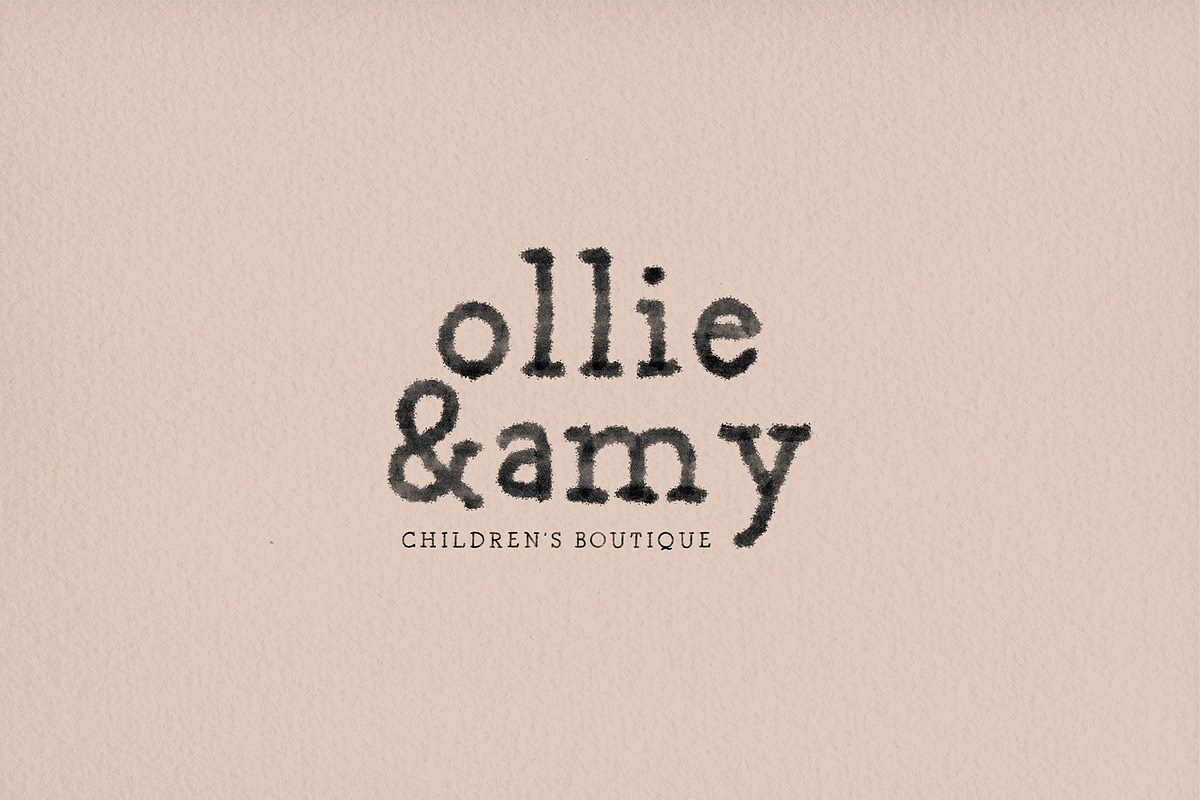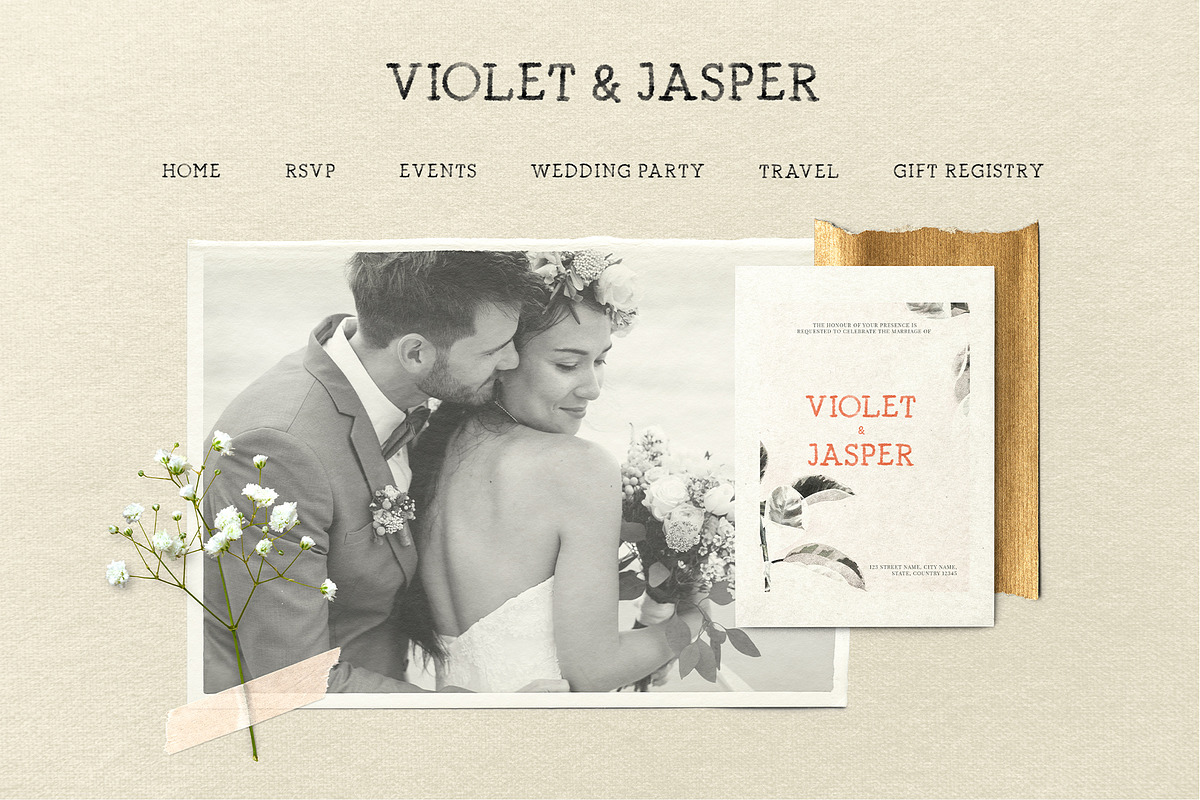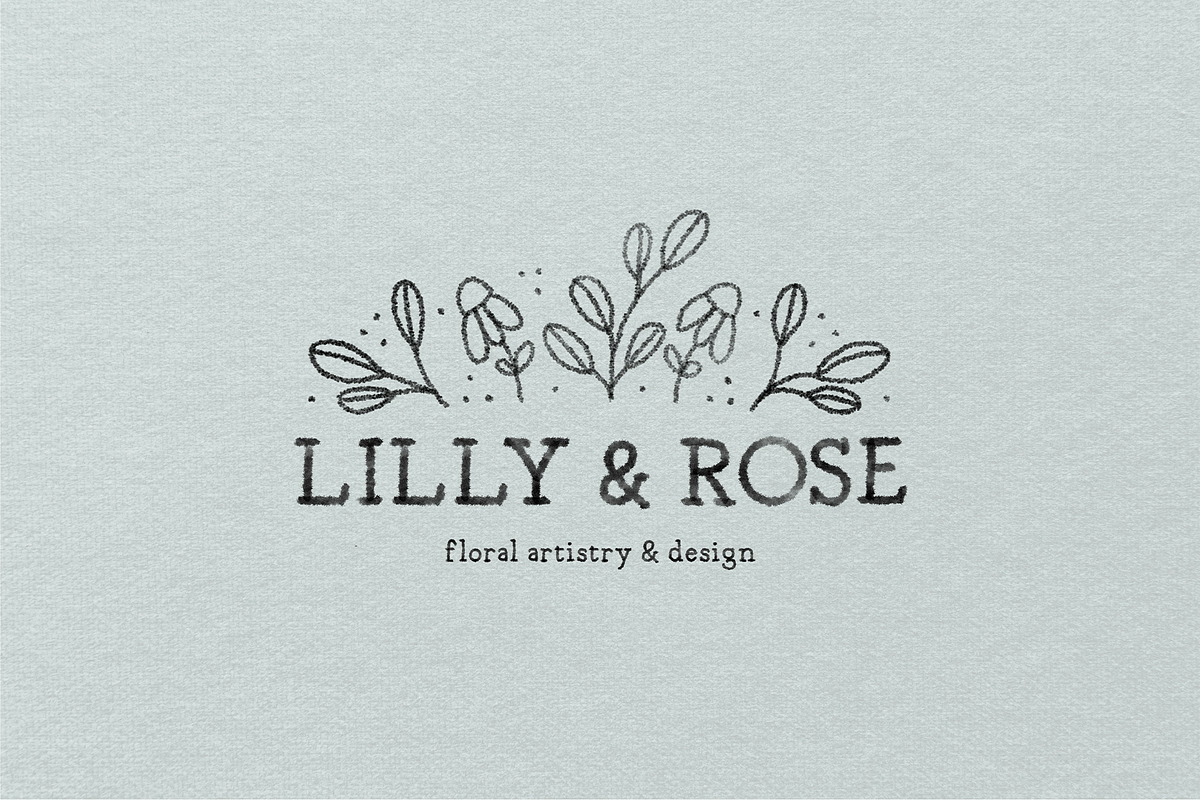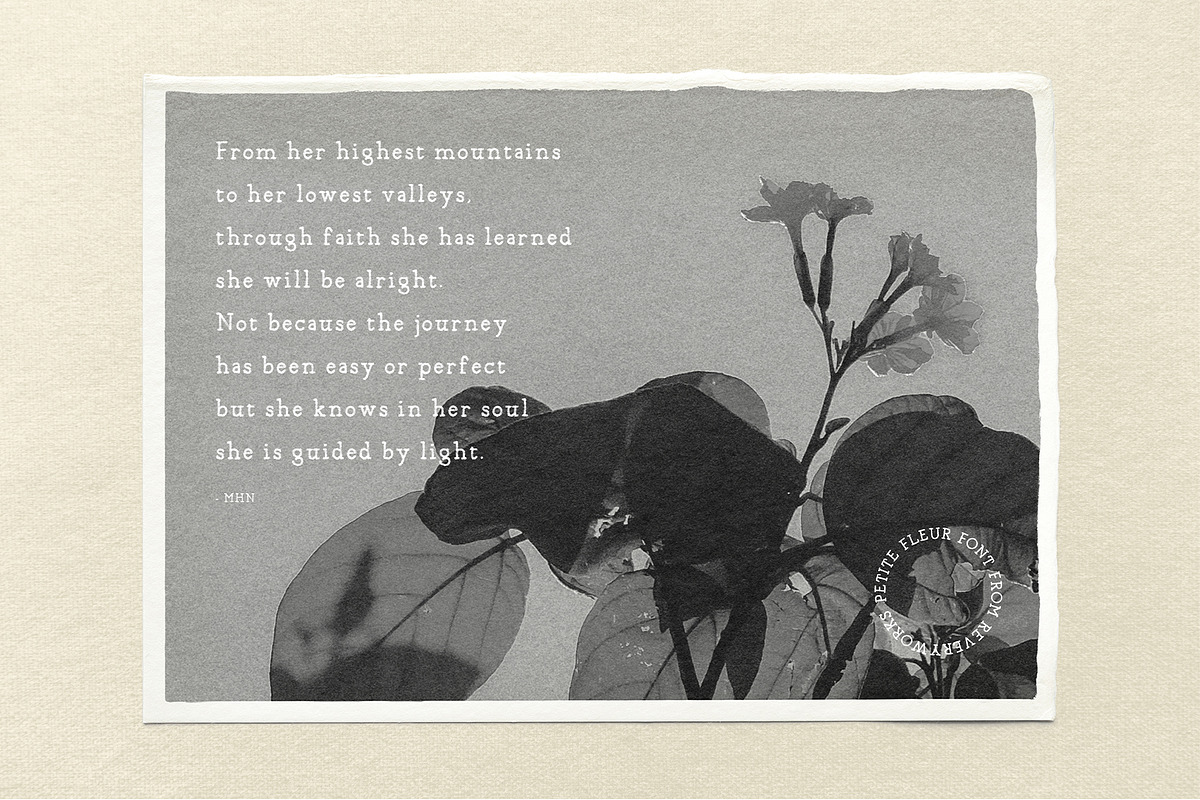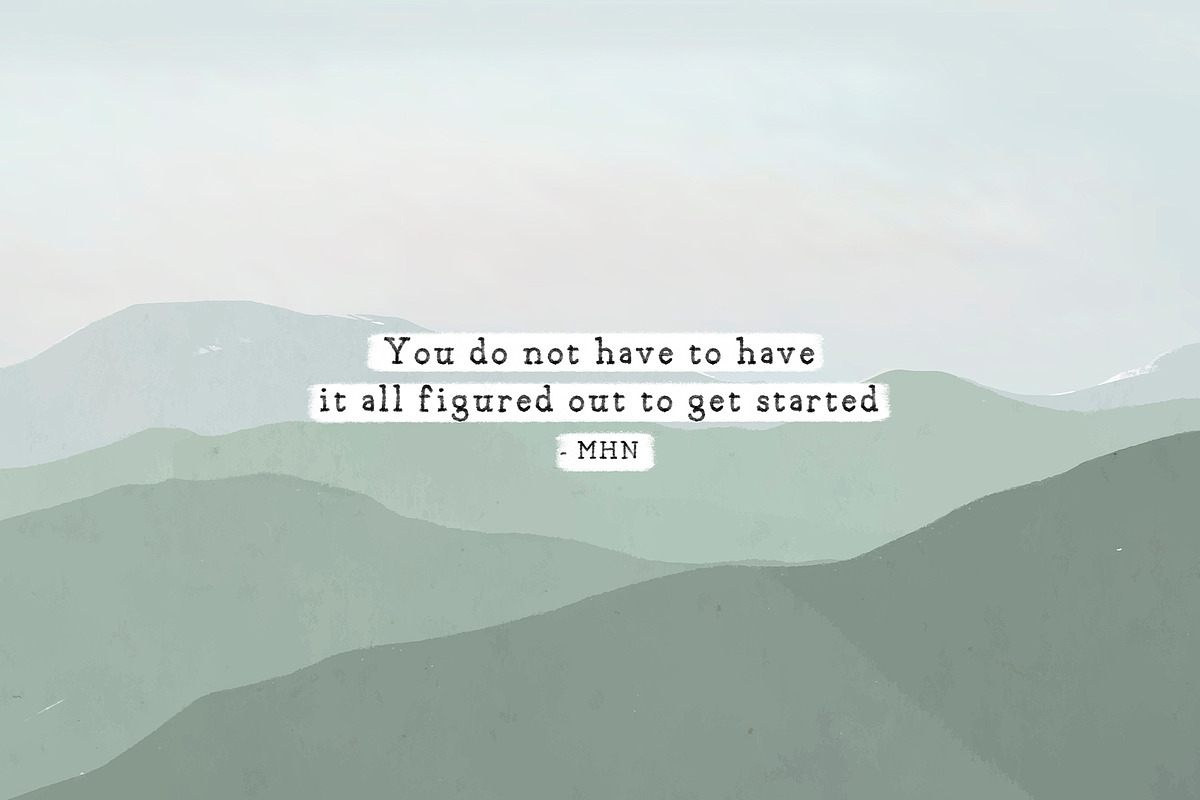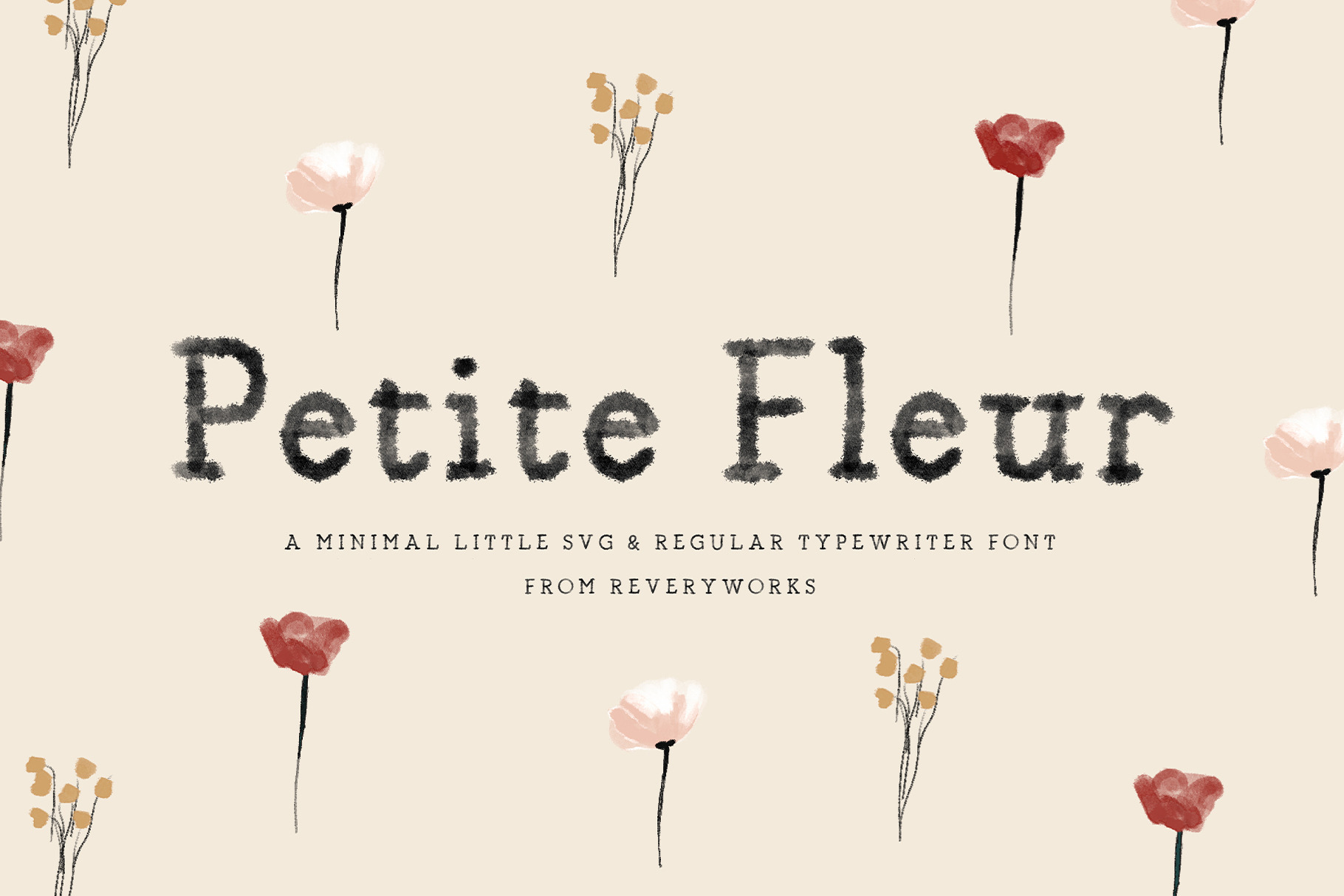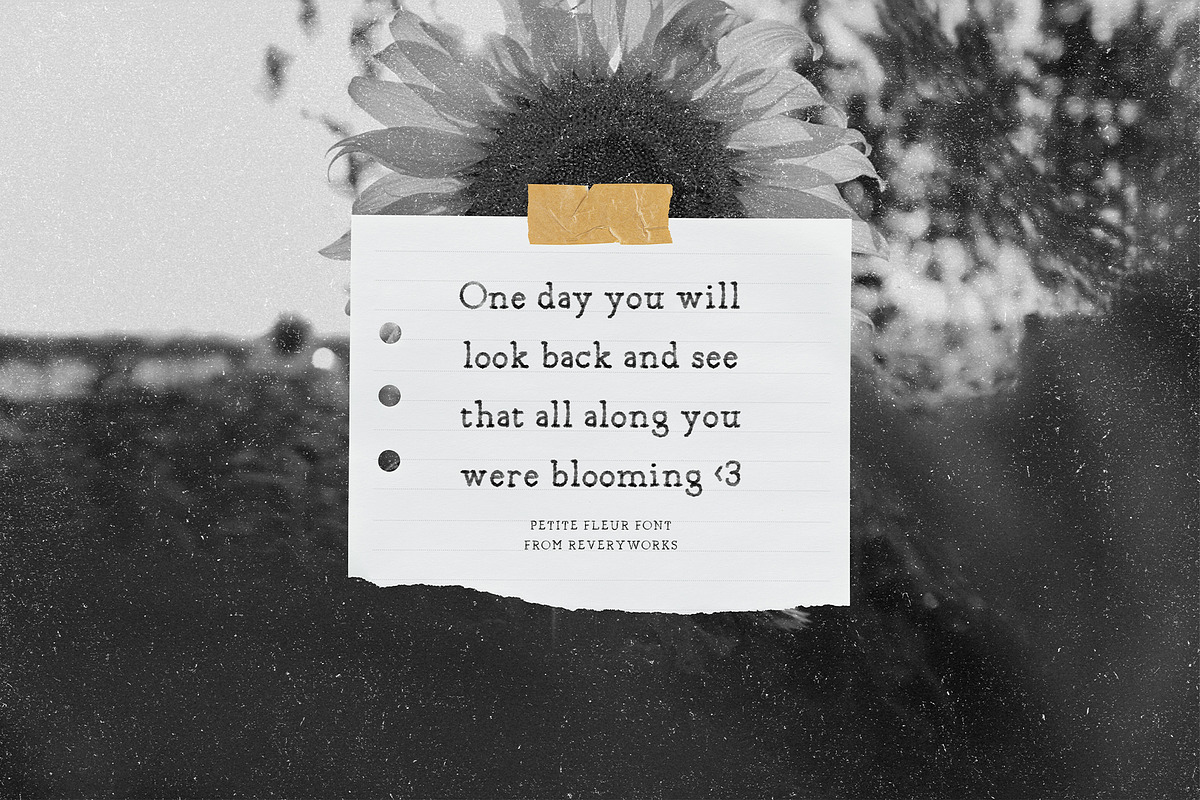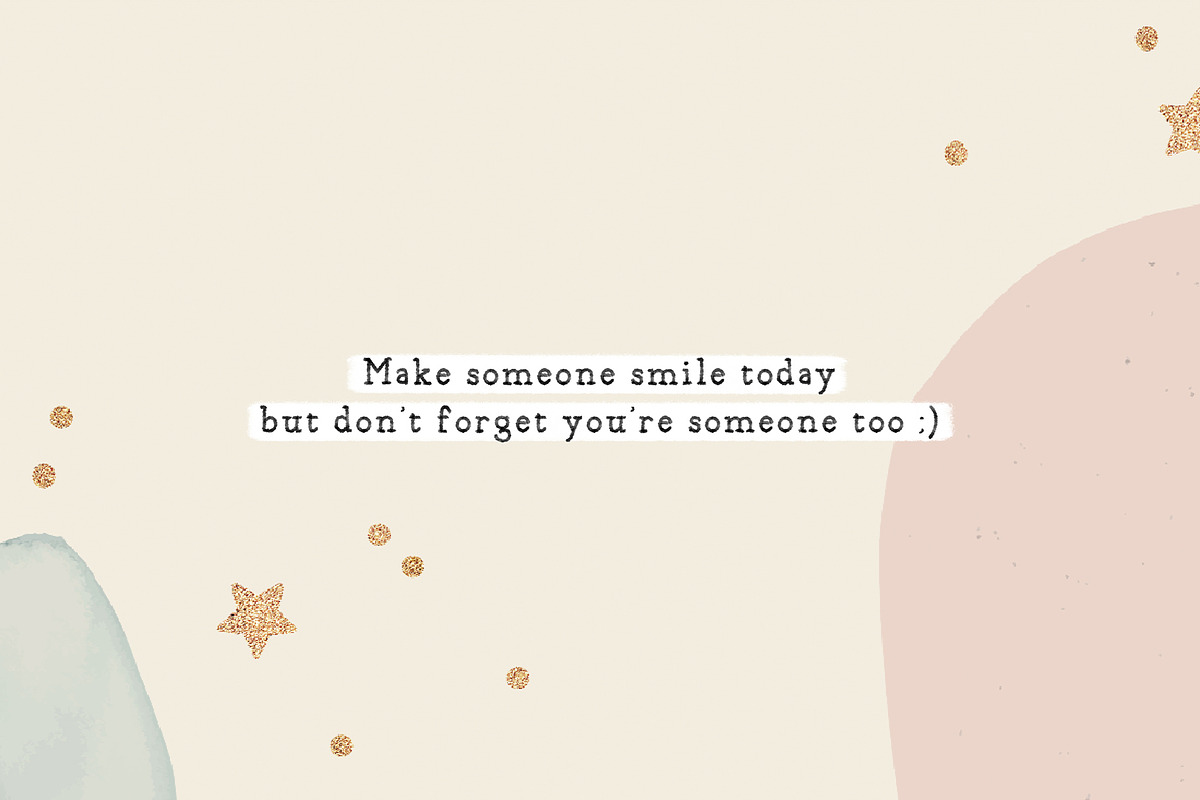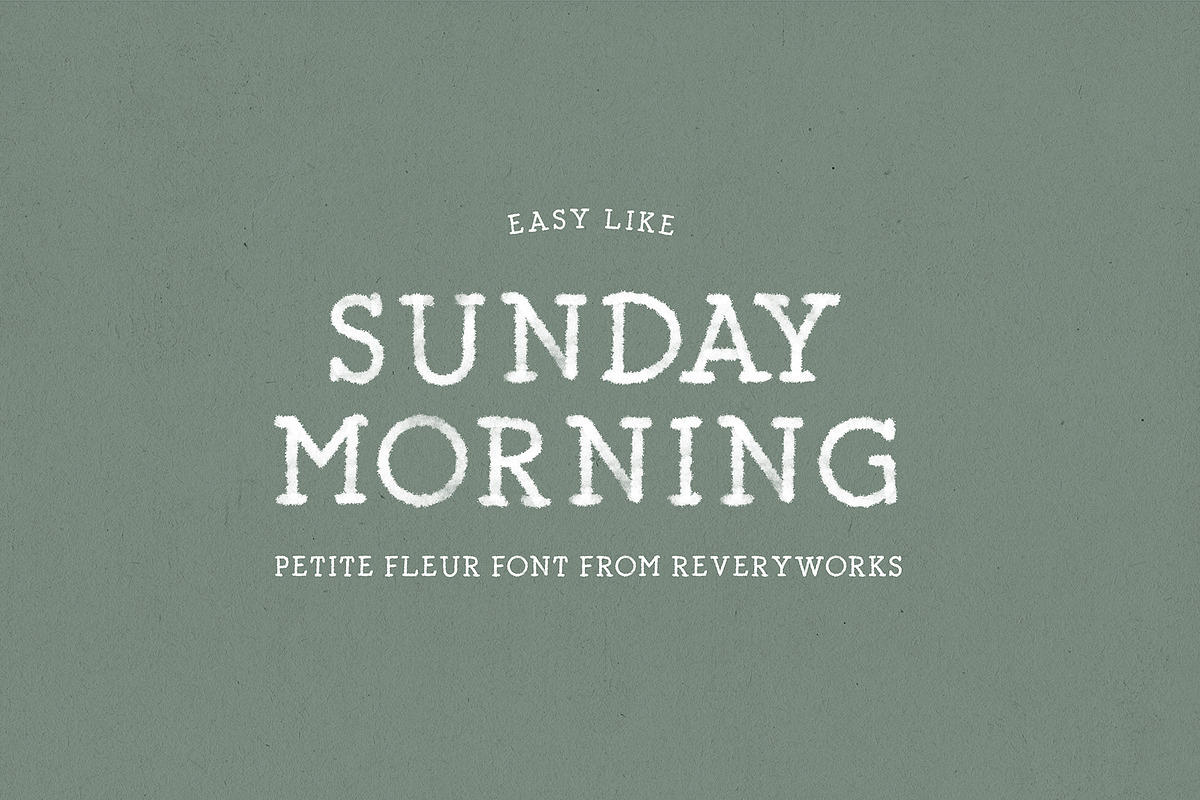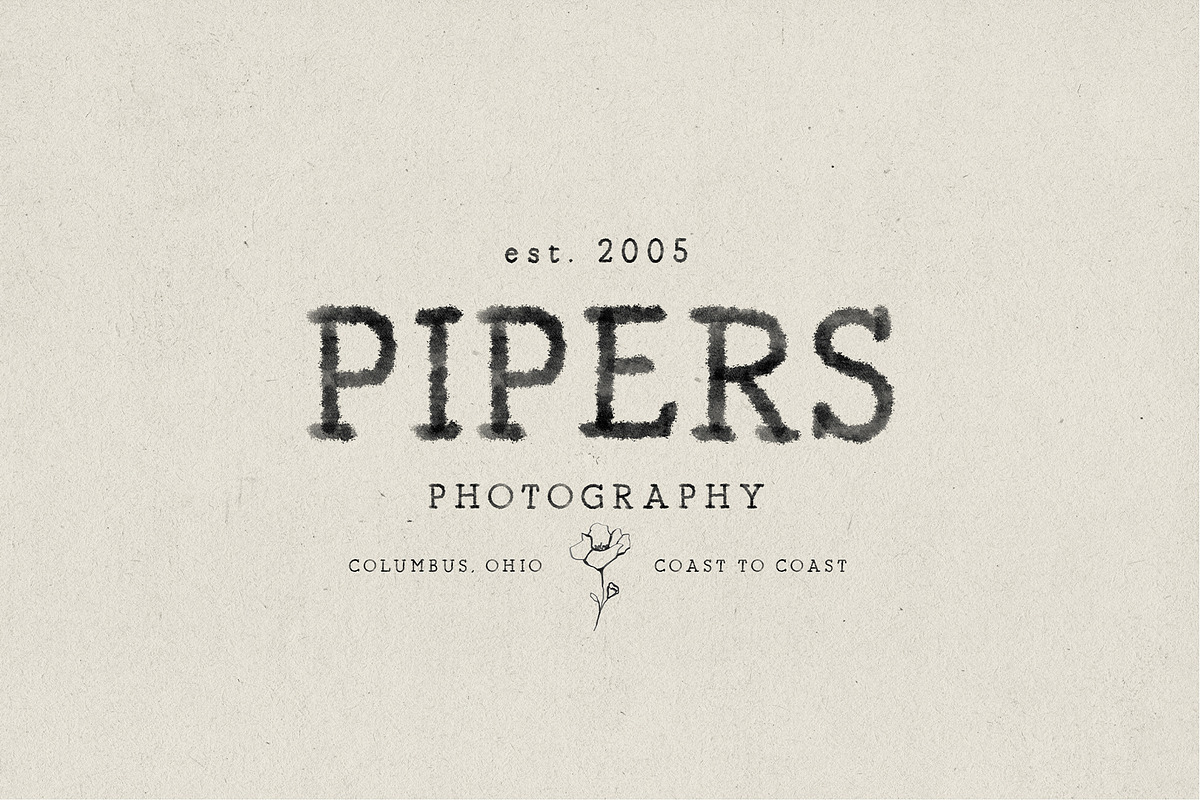
Petite Fleur Font: SVG, Regular
Introducing Petite Fleur: A minimal handwritten typewriter font, available as SVG and regular. Inspired by poetic quotes with a retro, vintage feel. The SVG version has a lovely authentic inky like texture, while the regular version is solid with rough edges.
The following characters included á â à ä å ã æ ç é ê è ë í î ì ï ı ñ ó ô ò ö õ ø œ š ß ú û ù ü ý ÿ ž À Ä Å Ã Æ Ç É Ê È Ë Í Î Ì Ï Ñ Ó Ô Ò Ö Õ Ø Œ Š Û Ù Ü Ý Ÿ